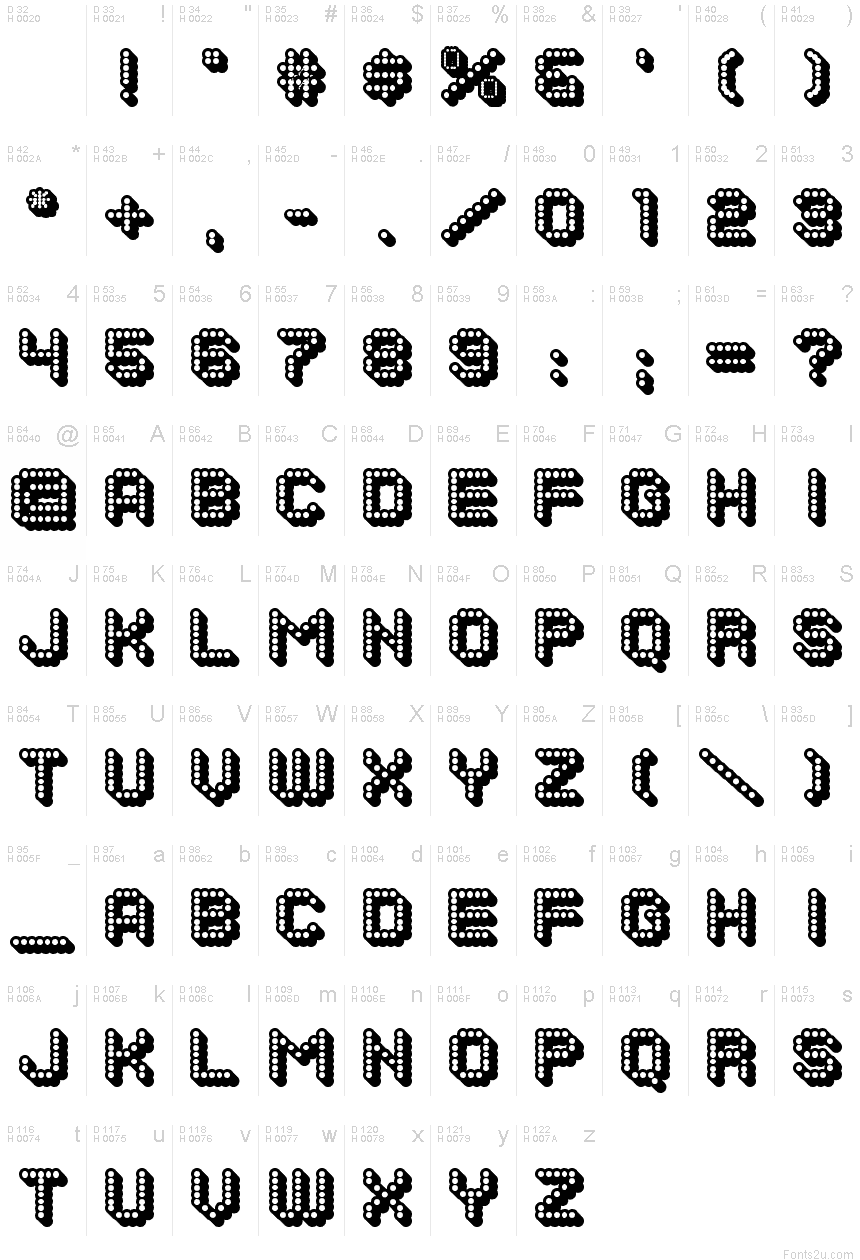
Dots All For Now 3D JL
Dots All For Now 3D JL font by Jeffrey N. Levine is a free 3D digital display typeface that channels classic marquee lights and retro scoreboards. Each character is built from tight rows of circular “bulbs” with a shaded edge, so the letters feel like they’re glowing and physically bolted onto a sign. The overall effect is bold, playful, and a bit nostalgic—great when you want type that looks like it’s buzzing with electricity rather than sitting flat on the page.
Using Dots All For Now 3D JL, you can instantly evoke vintage theaters, arcades, and carnival signage in headlines, event posters, party invitations, social media graphics, banners, and bold branding lockups. The regular spacing and modular dot grid keep even busy layouts readable at a glance, especially at larger sizes. For a clear hierarchy, pair this free font with a clean geometric sans for body copy and let Dots All For Now handle the loud, attention-grabbing moments.